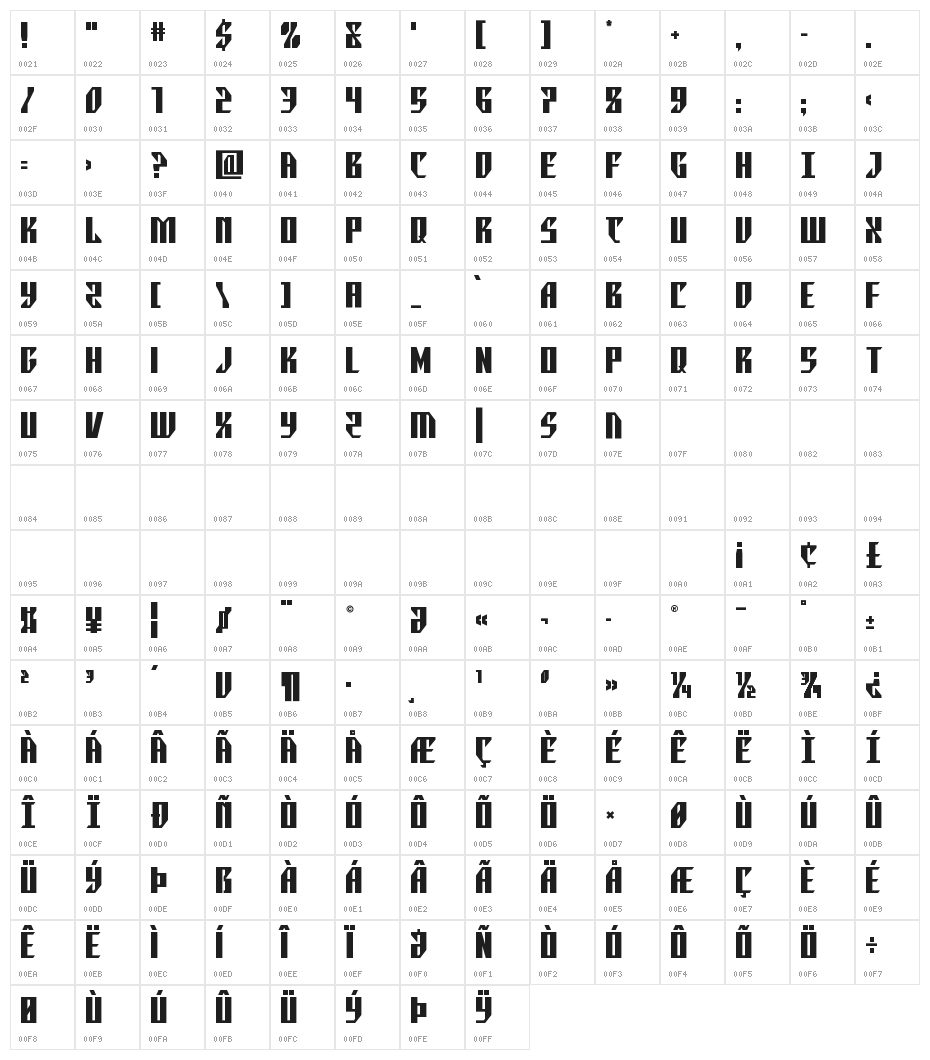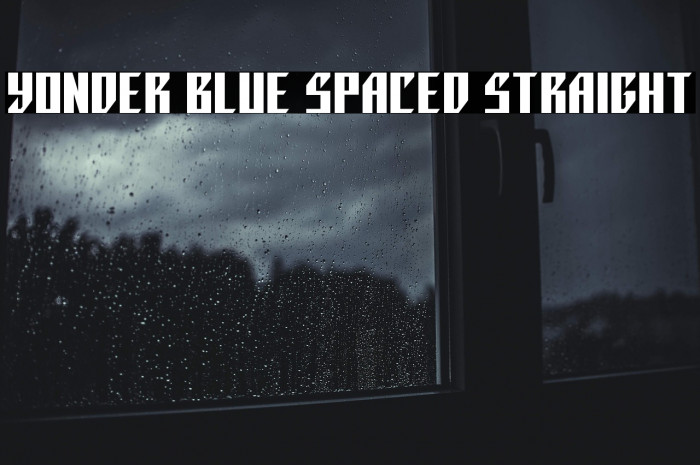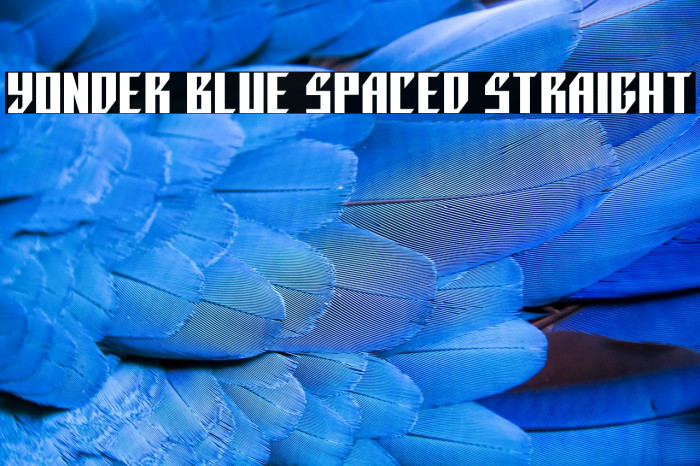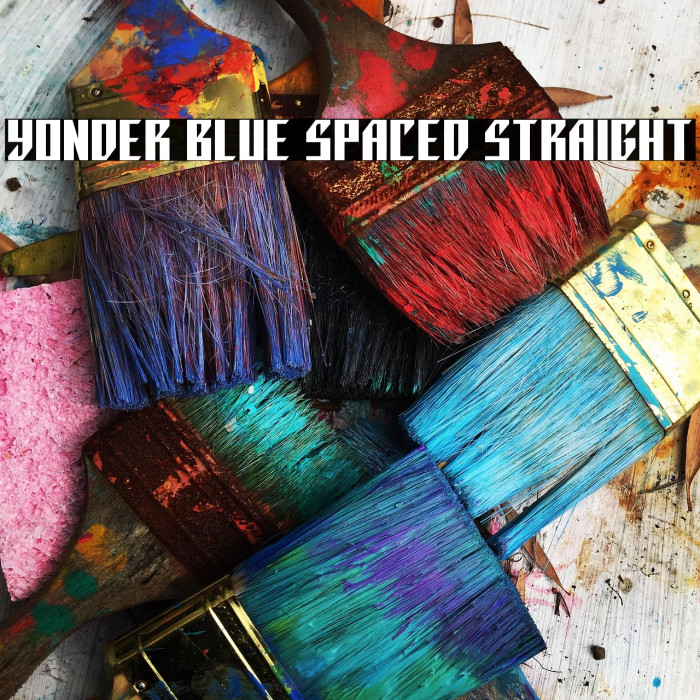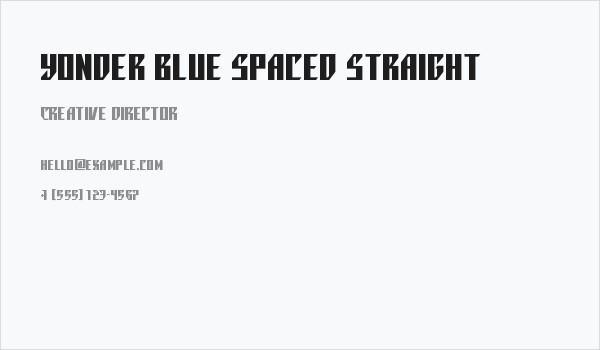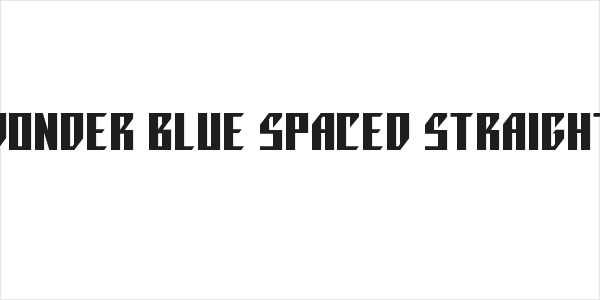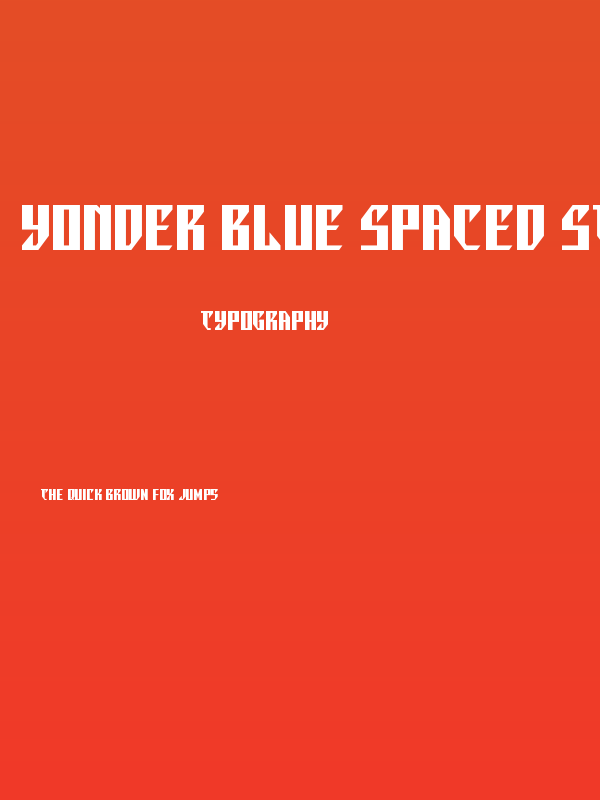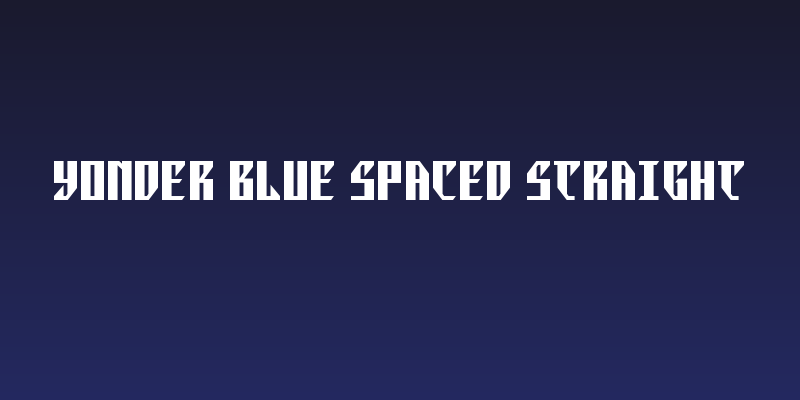
Yonder Blue Spaced Straight Font
Yonder Blue Spaced Straight Description
This font features a bold and geometric design with sharp, angular edges and a strong presence. The uppercase and lowercase letters maintain a consistent width, creating a uniform appearance. The characters are tightly spaced, enhancing the compact and impactful look. The numbers and special characters follow the same angular style, ensuring cohesion across all elements. The font's high contrast in stroke thickness adds to its striking and modern aesthetic, making it ideal for attention-grabbing designs.
| Proposed Projects | Ideal for branding, posters, headlines, and any project requiring a strong visual impact. |